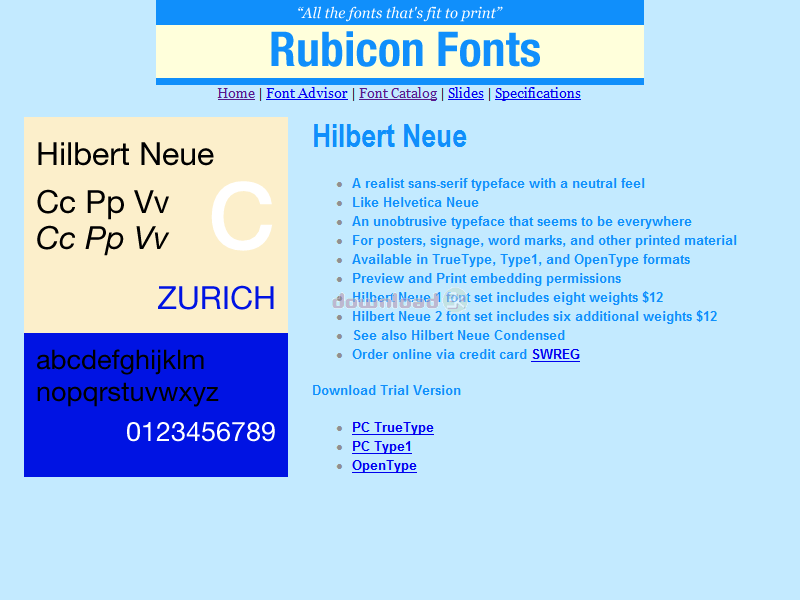
"Realist sans serif font, neutral feel"
Rubicon Hilbert Neue Fonts. Realist sans serif font with a neutral feel. Like Helvetica Neue. An unobtrusive typeface that seems to be everywhere. An all purpose design, great for posters, signage, corporate word marks, and other graphic material. Now in Truetype, Type1, and OpenType formats. Accurate and hinted, matching font metrics, standard character set, kerning pairs. Professional print quality for inkjet, laser, typesetter to 3500 dpi. Hilbert Neue 1 font set includes Light, Light Oblique, Normal, Oblique, Bold, Bold Oblique, Extrabold, Extrabold Oblique. Hilbert Neue 2 font set includes Extralight, Extralight Oblique, Medium, Medium Oblique, Ultrabold, and Ultrabold Oblique.Requirements: No special requirements.